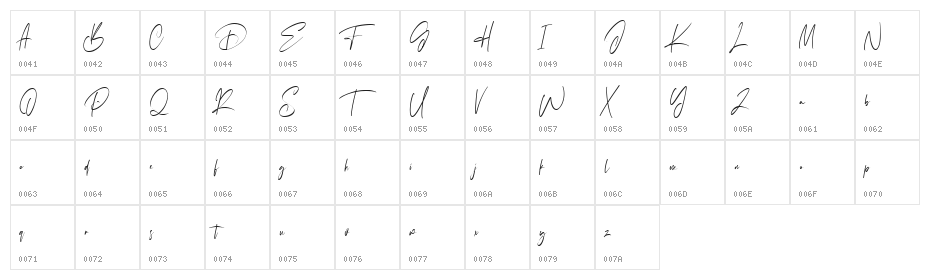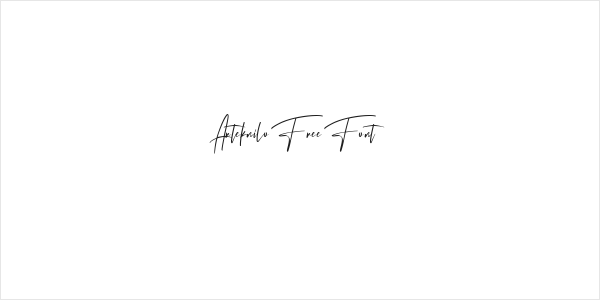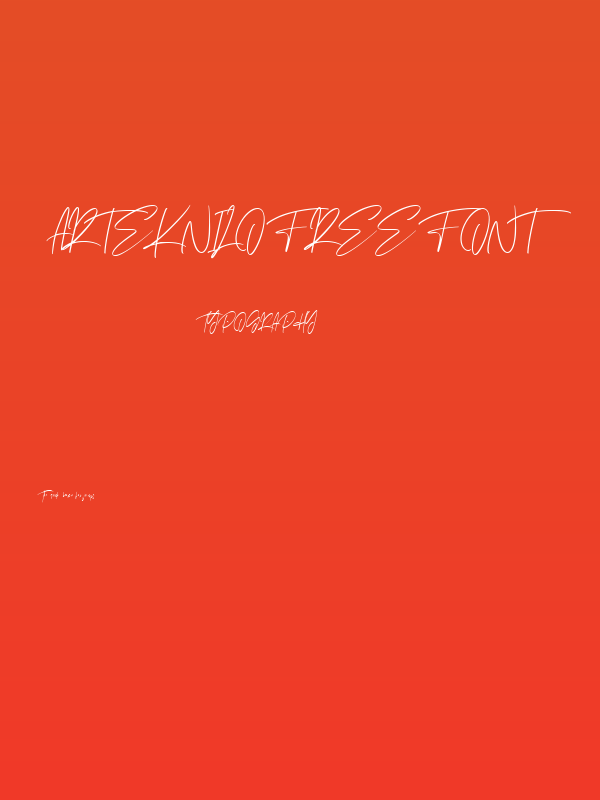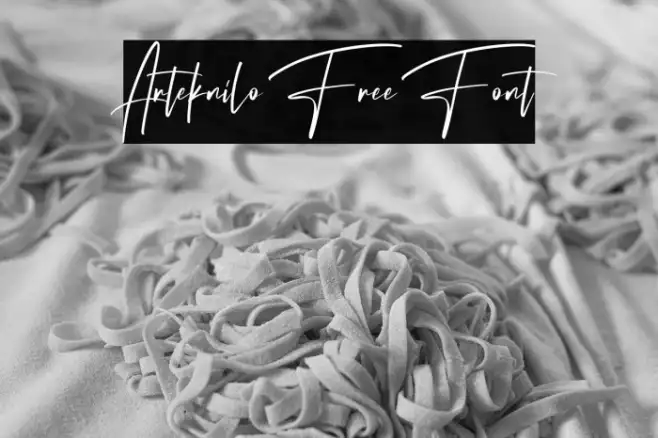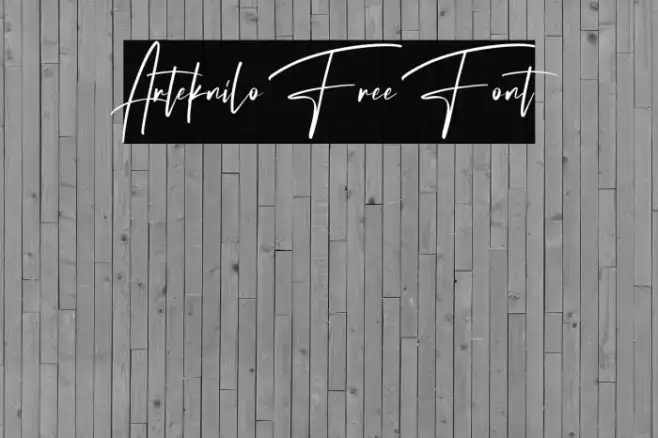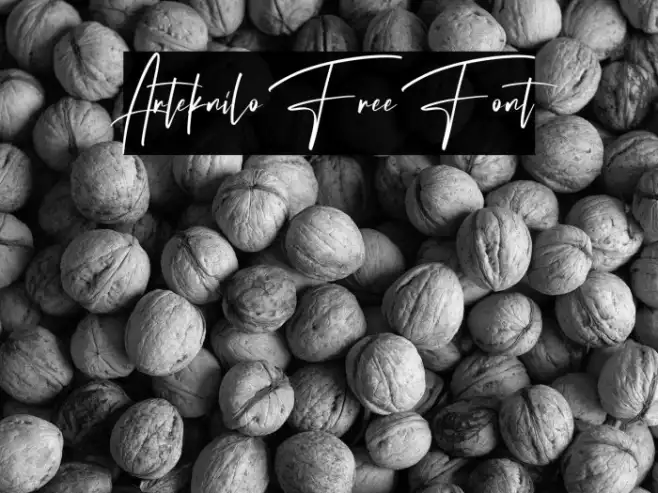
Arteknilo Free Font Font
Arteknilo Free Font Description
This font features an elegant and flowing script style that mimics the fluidity of natural handwriting. The letters are characterized by their elongated and sweeping strokes, creating a sense of movement and grace. The uppercase letters are bold and prominent, while the lowercase letters maintain a delicate and refined appearance. The overall design is both sophisticated and artistic, making it suitable for creative and decorative purposes. The font's unique style is perfect for adding a personal touch to any project, with its intricate curves and stylish flair.
| Proposed Projects | Ideal for wedding invitations, greeting cards, branding, and artistic projects. |